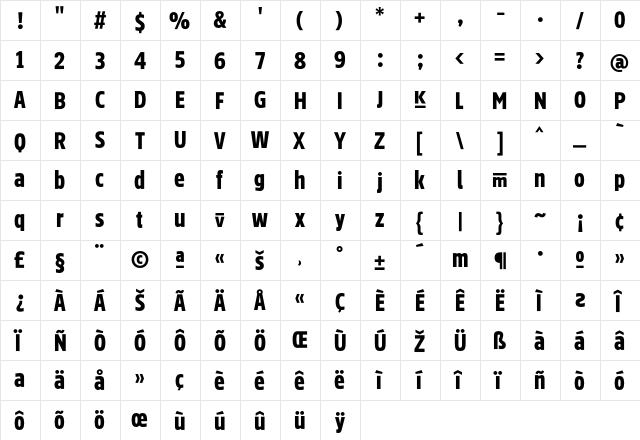
Glasgow1999 Plus
Design Context for Glasgow1999 Typeface
Glasgow1999 offers clean, dependable letterforms without strong stylistic allegiance, making it a practical choice for designers who need flexibility.